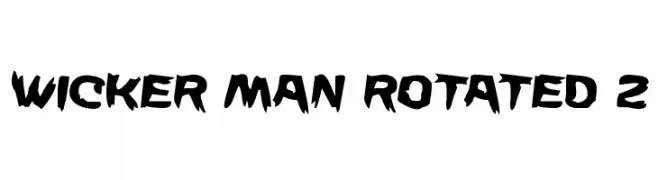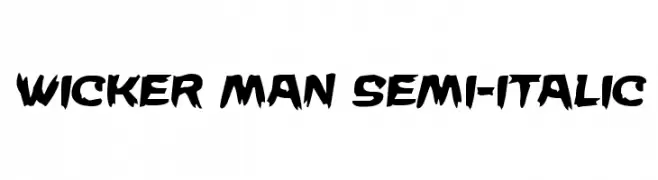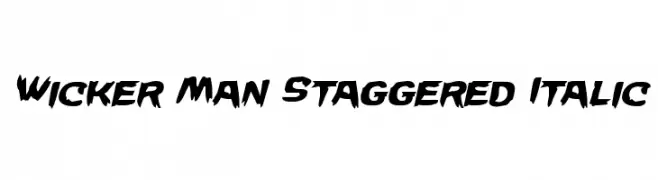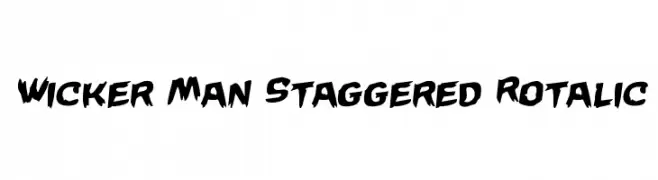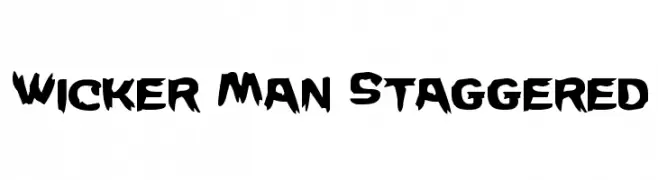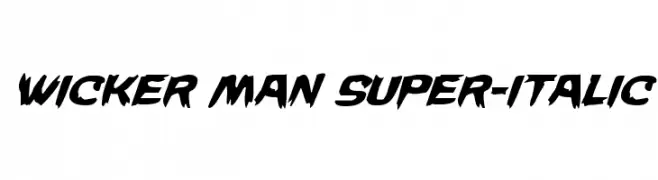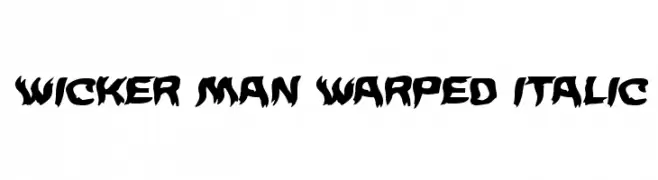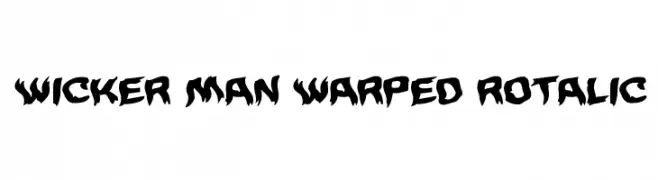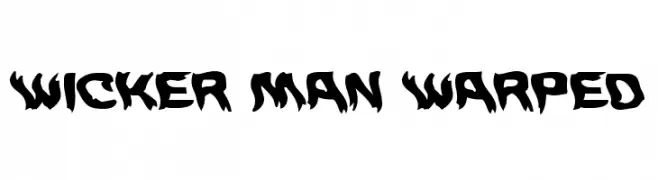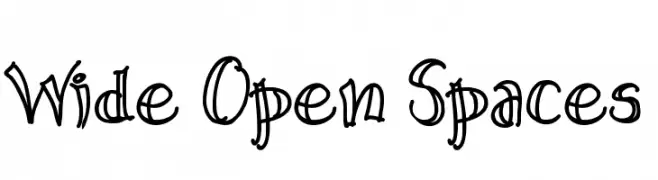
( Iconian Fonts - Daniel Zadorozny - www.iconian.com )
A bold, jagged font with sharp, angular cuts and a distressed appearance.
( Iconian Fonts - Daniel Zadorozny - www.iconian.com )
A bold, jagged, semi-italic font with a dynamic and aggressive style.
( Iconian Fonts - Daniel Zadorozny - www.iconian.com )
A bold, jagged font with a rugged, hand-carved aesthetic.
( Iconian Fonts - Daniel Zadorozny - www.iconian.com )
A bold, staggered italic font with a jagged, edgy style.
( Iconian Fonts - Daniel Zadorozny - www.iconian.com )
A bold, staggered, and italicized font with sharp, angular edges.
( Iconian Fonts - Daniel Zadorozny - www.iconian.com )
A bold, italicized font with sharp, angular edges and a dynamic style.
( Iconian Fonts - Daniel Zadorozny - www.iconian.com )
A bold, jagged font with sharp, torn edges for a dynamic look.
( Iconian Fonts - Daniel Zadorozny - www.iconian.com )
A bold, warped, and italicized font with a rugged, dynamic style.
( Iconian Fonts - Daniel Zadorozny - www.iconian.com )
A bold, jagged, and warped font with an edgy, dynamic style.
( Jessica Darnell )
A playful, hand-drawn font with bold, whimsical strokes.